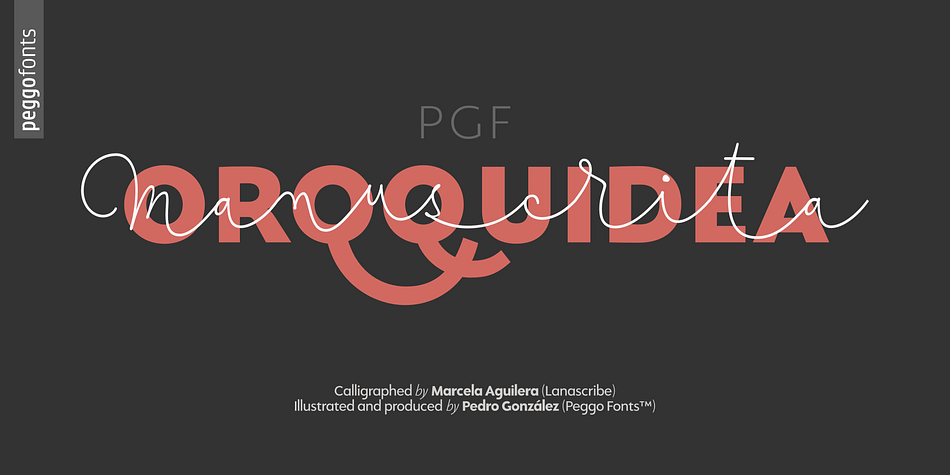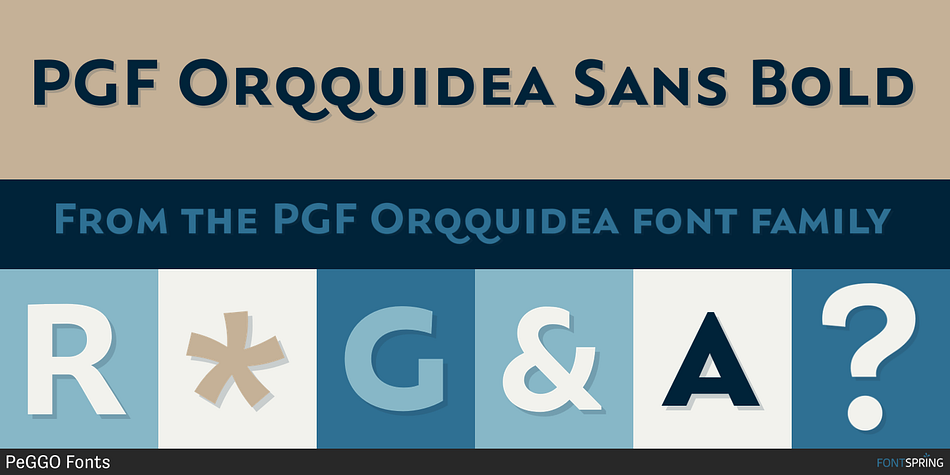
PGF Orqquidea Sans Bold
Designed by Marcela Aguilera, PeGGO Fonts and Pedro Gonzalez Jorquera, PGF Orqquidea is a display sans, modern calligraphy and dingbat font family. This typeface has twelve styles and was published by PeGGO Fonts.
PGF Orqquidea Manuscrita is a font mainly based on the calligraphy hand- made by the Chilean designer, calligra- pher and teacher Marcela Aguilera (Lanascribe) complemented by the il- lustration and type design work made by Pedro González (Peggo FontsTM). As part of the creation of the “Orqquidea family”, which contains a Sans, a Script, complemented with an ornaments and decorations sets, in addition to a huge set of typographic resources de- signed to enrichyour layouts in the cre- ation of graphic pieces such as labels , packaging, editorial work, retail graph- ics and branding design.
Style Sans Bold
Foundry PeGGO Fonts
Designers Marcela Aguilera, PeGGO Fonts, Pedro Gonzalez Jorquera